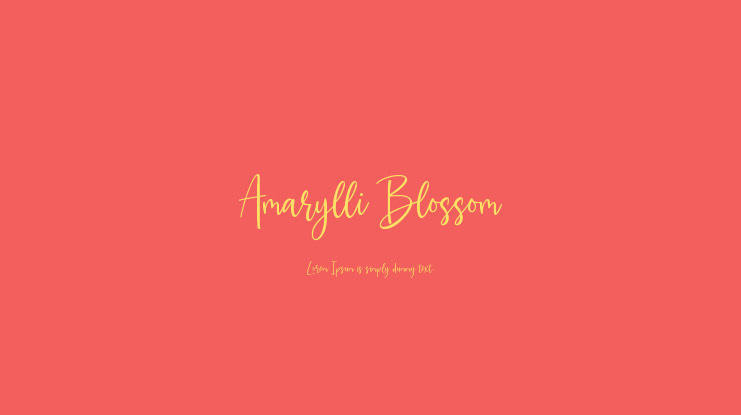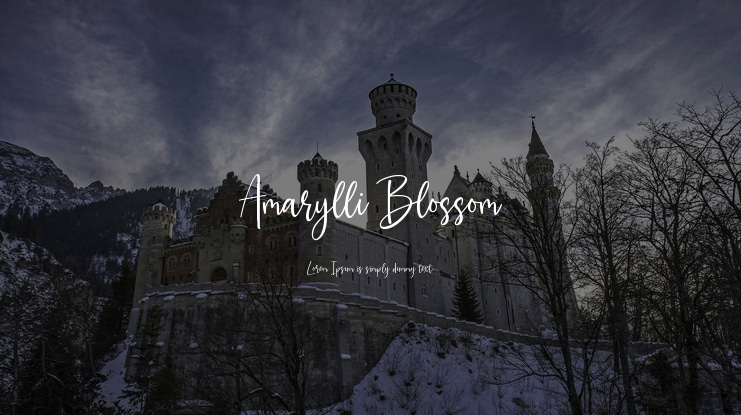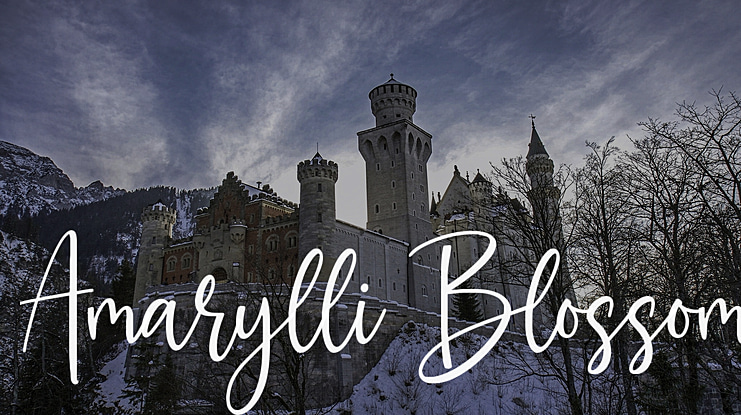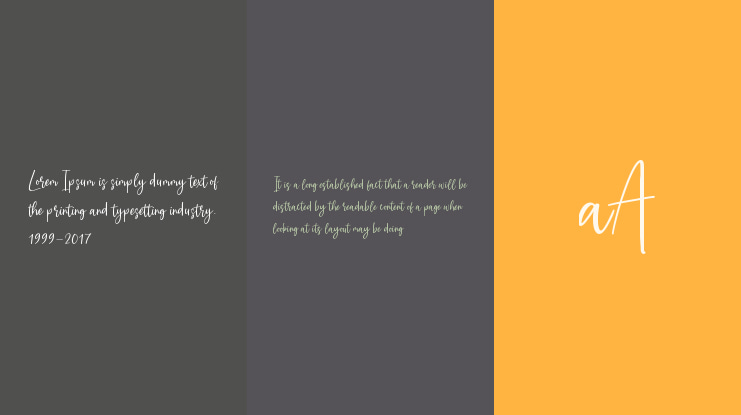
Amarylli Blossom Font
Proudly Present, Amarylli Blossom Font.
Amarylli Blossom is a Modern Handwritten Font.
Amarylli Blossom is perfect for product packaging, branding project, megazine, social media, wedding, or just used to express words above the background.